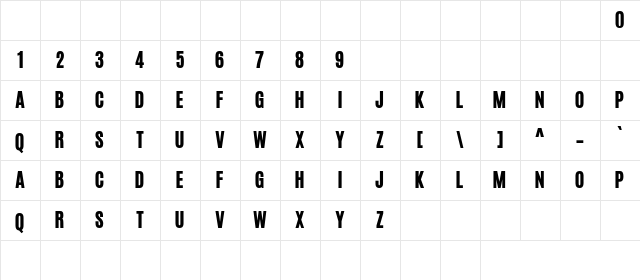
Ioannina Bold
Design Context for Ioannina Typeface
Ioannina takes a measured approach to typography — its balanced proportions and neutral character make it a reliable workhorse for both digital and print work. The heavy weight commands attention and anchors typographic hierarchies.
Pro Tip: Pair Ioannina with a font of contrasting weight or personality to build a more expressive typographic hierarchy.